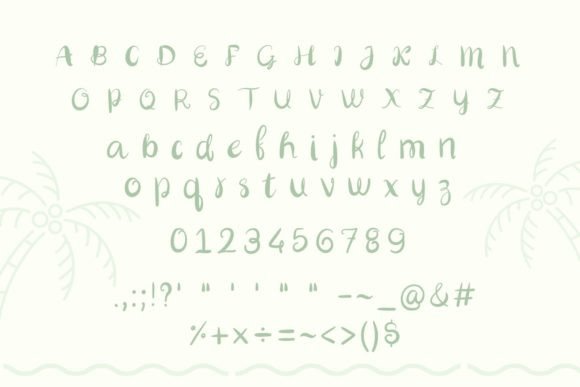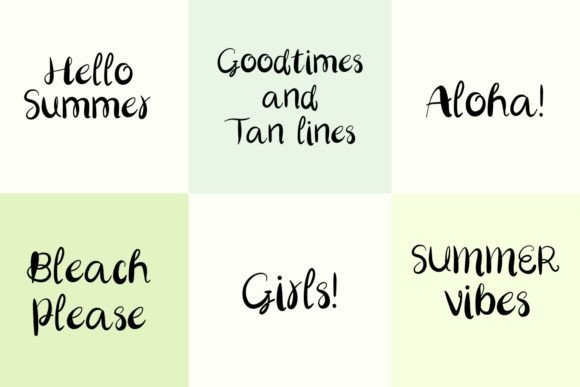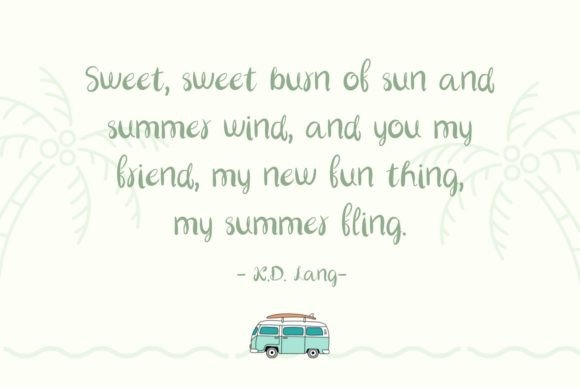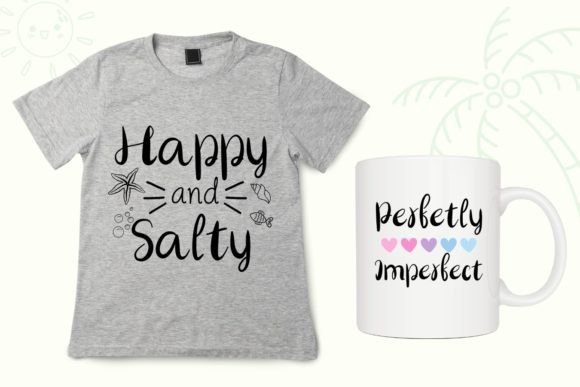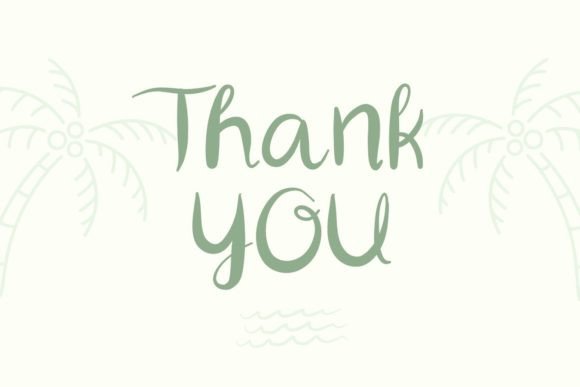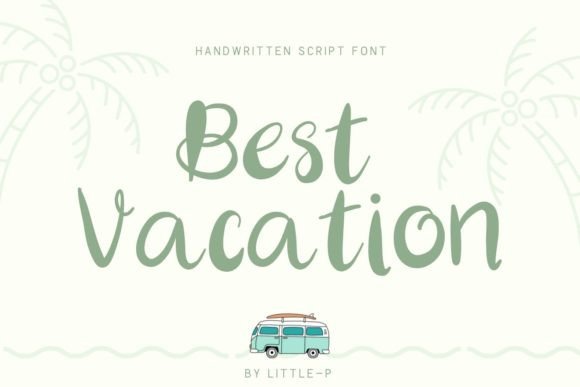
Introducing “Best Vacation” – The Perfect Font for Your DIY Projects
Are you tired of using the same old fonts for your designs? Do you want to add a personal touch to your projects and make them stand out from the crowd? Look no further than “Best Vacation”, the beautiful handwriting script font that’s perfect for all your DIY needs. With its friendly feel and elegant touch, this font is sure to elevate your creations and give them a sophisticated charm.
The Perfect Blend of Elegance and Approachability
Best Vacation is a calligraphy-inspired script font that exudes a sense of elegance and style. Its graceful curves and smooth lines evoke a warm and approachable vibe, making it perfect for a wide range of design projects. Whether you’re designing wedding invitations, thank you cards, quotes, or even T-shirts, this font will add a touch of sophistication and creativity to your work.
Why Choose Best Vacation?
So, what sets Best Vacation apart from other fonts? Here are just a few reasons why this font is a must-have for designers and crafters:
• Unique and Creative: Best Vacation is a one-of-a-kind font that’s sure to make your designs stand out from the crowd. Its calligraphy-inspired scripts add a touch of elegance and sophistication to any project.
• Versatile: This font is perfect for a wide range of design projects, from wedding invitations and thank you cards to quotes and T-shirts.
• Easy to Read: Despite its elegant and sophisticated feel, Best Vacation is easy to read and understand, making it perfect for designs that require a clear and concise message.
• Customizable: With Best Vacation, you can customize your designs to fit your personal style and branding. Use it as is, or experiment with different colors, textures, and effects to create a unique look.
Design Ideas with Best Vacation
So, how can you use Best Vacation in your designs? Here are a few ideas to get you started:
• Wedding Invitations: Use Best Vacation to create beautiful and elegant wedding invitations that set the tone for the big day.
• Thank You Cards: Add a personal touch to your thank you cards with Best Vacation, perfect for expressing gratitude to friends and family.
• Quotes and Posters: Use Best Vacation to create inspiring quotes and posters that make a statement.
• T-Shirts and Apparel: Add a touch of elegance and sophistication to your T-shirts and apparel with Best Vacation.
• DIY Crafts: Use Best Vacation to create custom labels, tags, and other DIY crafts that make your projects stand out.
Tips for Using Best Vacation
Here are a few tips for getting the most out of Best Vacation:
• Experiment with Colors: Try pairing Best Vacation with different colors and textures to create a unique look.
• Play with Sizes: Experiment with different font sizes to create visual interest and hierarchy in your designs.
• Add Effects: Try adding effects like glitter, foil, or watercolor to give your designs an extra touch of elegance.
In conclusion, Best Vacation is the perfect font for designers and crafters looking to add a personal touch to their projects. With its elegant and sophisticated feel, versatile design, and ease of use, this font is sure to elevate your creations and make them stand out from the crowd. So why wait? Download Best Vacation today and start creating beautiful and unique designs that showcase your personal style.